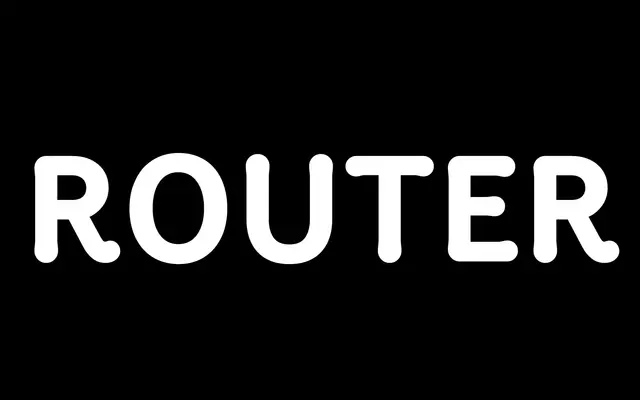
Router
A sans-serif drawn from the motion of a rotating engraver, with deliberate stroke swells at start and stop points that give it a mechanical personality unlike any standard geometric.
Jeremy Mickel designed Router in 2008, taking the characteristic swelling that a routing tool leaves when it enters and exits a cut and turning that artefact into the typeface's defining feature. The result sits somewhere between a geometric sans and an industrial signage letter, with a quiet but unmistakable quirk in each stroke terminal. Twelve styles across six weights with matching italics, small caps and case-sensitive punctuation round out a family that works from display sizes down to modest text. Selected for the Graphic Design: Now in Production exhibition at the Walker Art Center and Cooper-Hewitt National Design Museum.
Router is a sans-serif with a distinctive mechanical quality drawn from engraving tool movement, producing subtle stroke swells at terminals that give it a geometric yet tool-derived character.